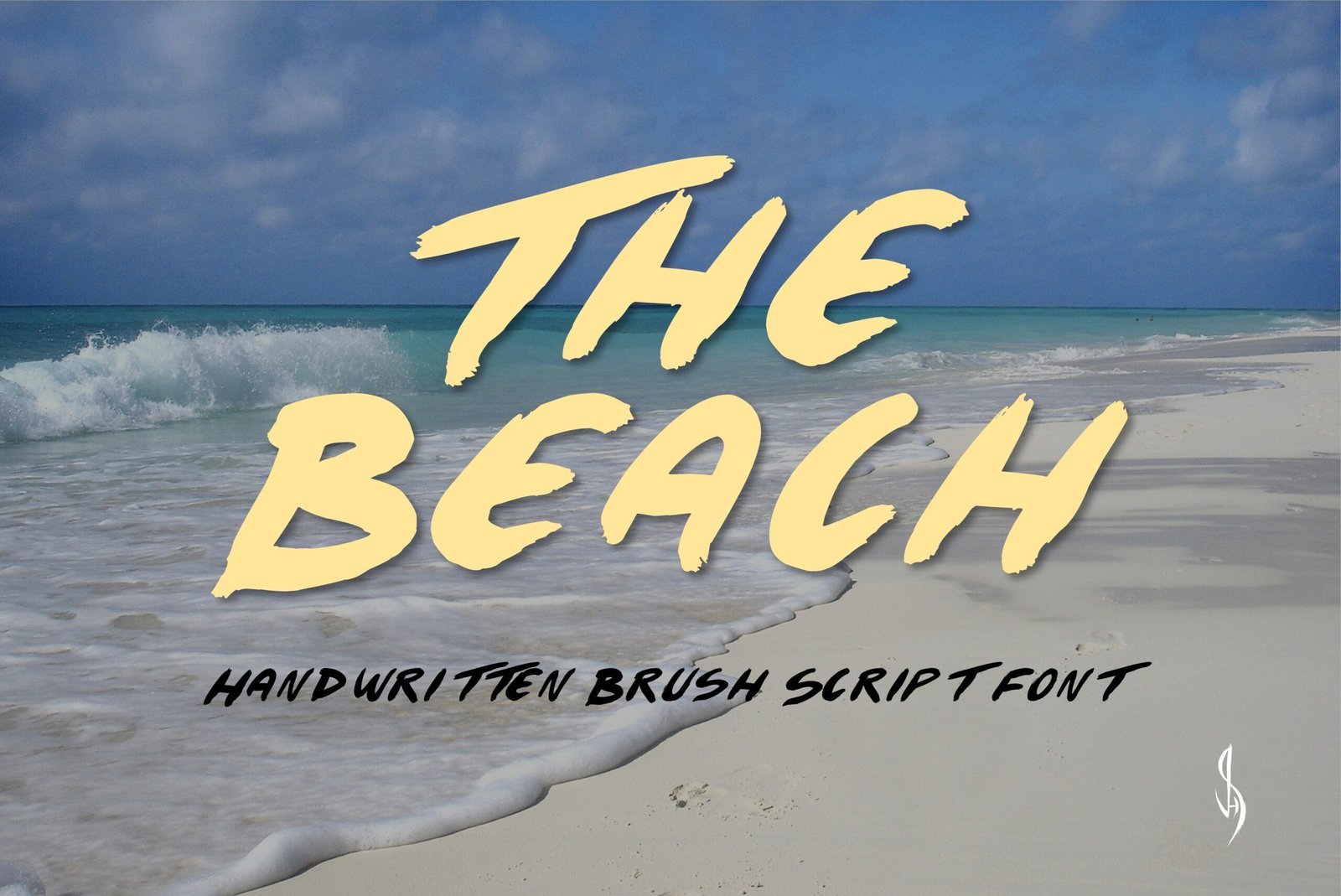
The Beach Font
Cool brush script font. “The Beach” Perfect for advertising and display purposes, including banners, book covers, shirts, posters, logos and much more!
This is an ALL CAPS font, including numbers and punctuation.